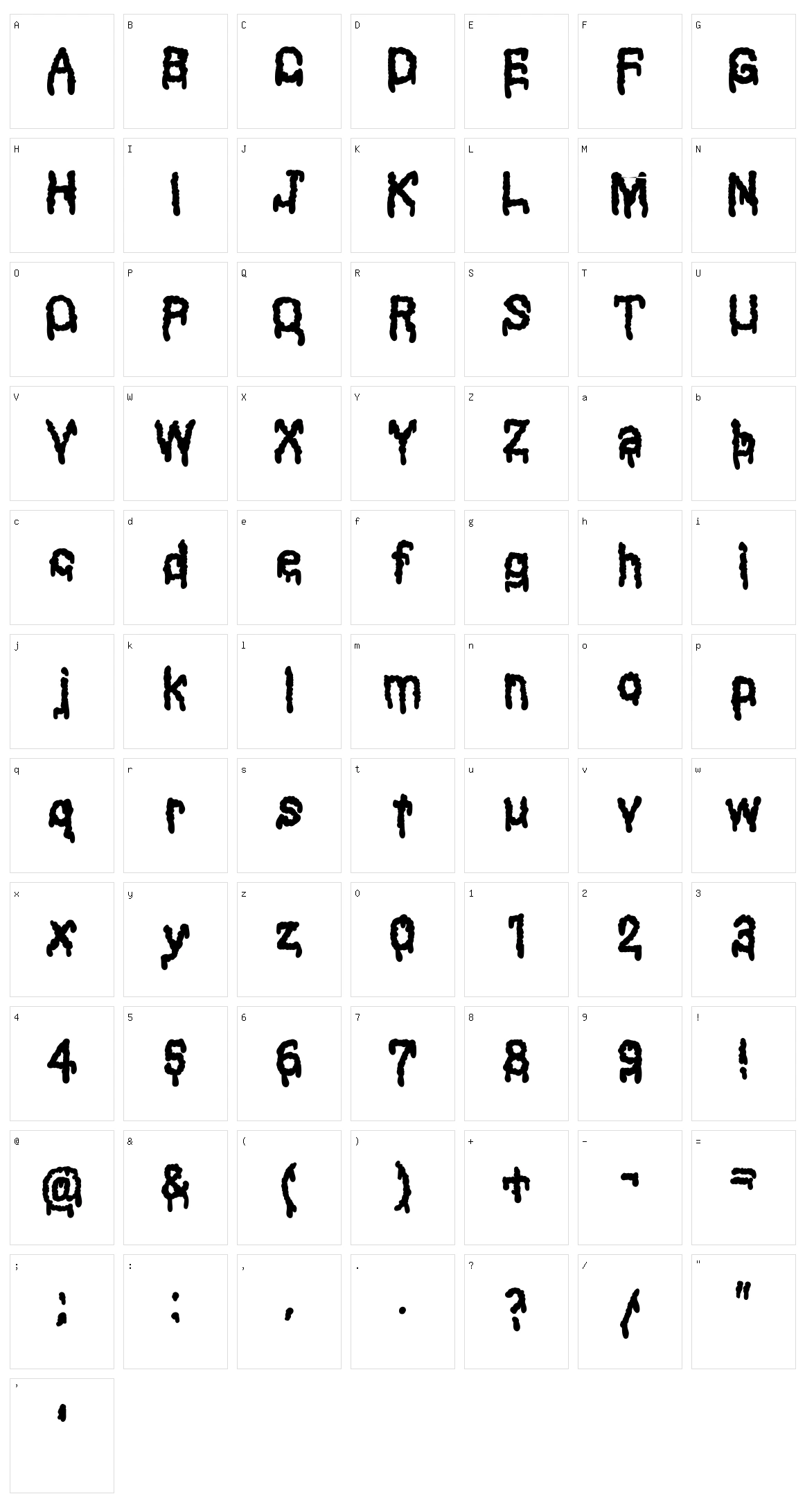
The free font Black Shadow is carefully designed by Geronimo Font Studios, showcasing a thoughtful balance of creativity and usability and falls under the Horror font style. When you download the ZIP file, it contains only 28.29 KB of font files, making it lightweight and quick to download. Please review the license details below to understand permitted usage and distribution rights. If license information is not available, we recommend using this font for personal projects only or contacting the author directly for commercial usage permissions.